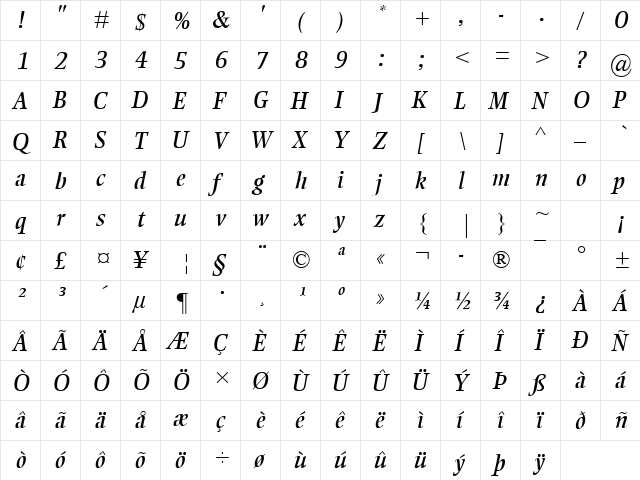
Ellington MT Italic
Design Context for Ellington MT Typeface
Ellington MT is a composed and adaptable typeface that performs quietly and consistently across a wide range of design contexts. Its italic angle brings a sense of urgency and motion to the letterforms.
Pro Tip: Use Ellington MT for emphasis, pull quotes, and subheadings where its slanted energy can add rhythm to the layout.